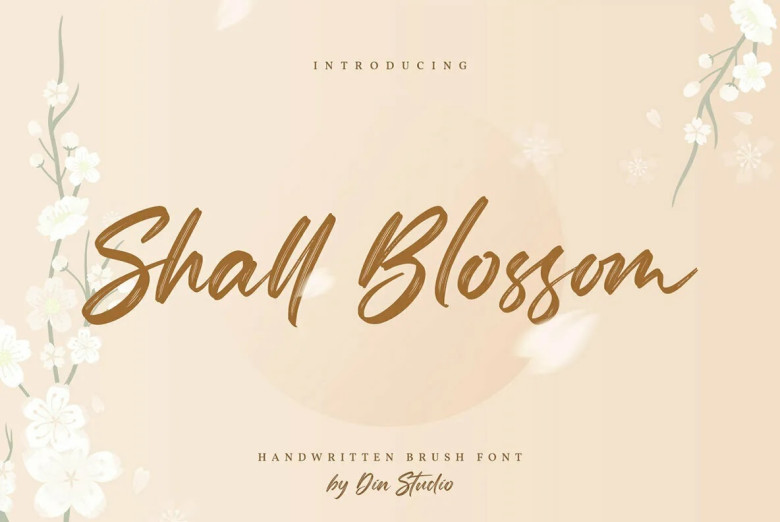
Shall Blossom Font
Shall Blossom features an elegant handwritten font, ideal for branding, packaging or labelling purposes, invitation, quote, t-shirt, label, poster, logo that you wish to develop.
Shall Blossom Brush Font